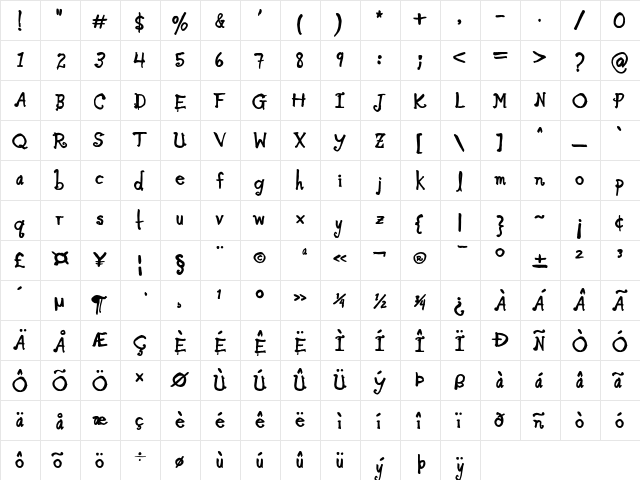
Blue Goblet Bold Bold Font Preview
Blue Goblet Bold Bold
Blue Goblet Bold Bold Font Details
| Foundry | Cory Godbey |
| Designer | Cory Godbey |
Design Context for Blue Goblet Bold Typeface
Blue Goblet Bold is a composed and adaptable typeface that performs quietly and consistently across a wide range of design contexts. The heavy weight commands attention and anchors typographic hierarchies.